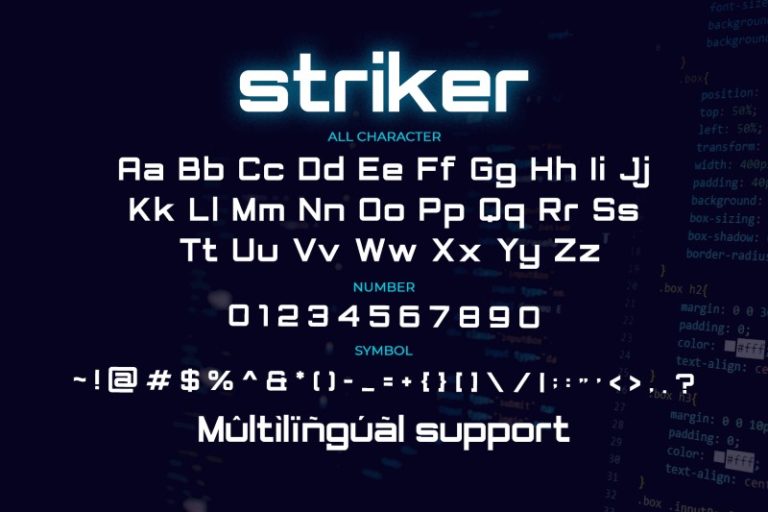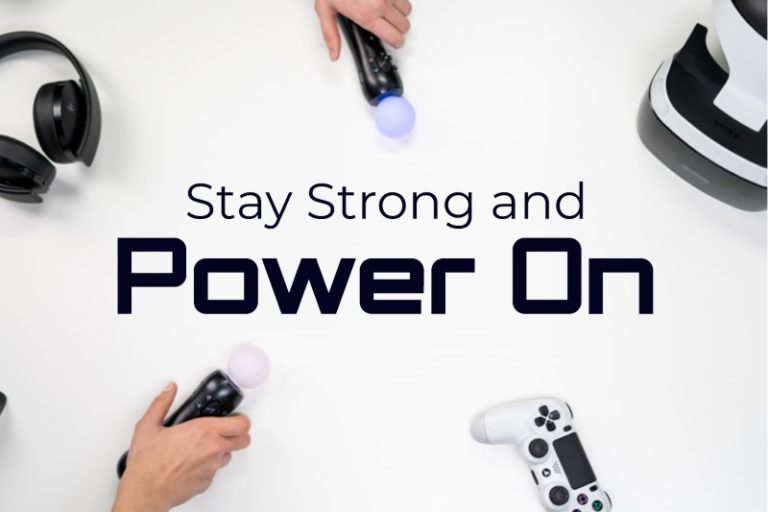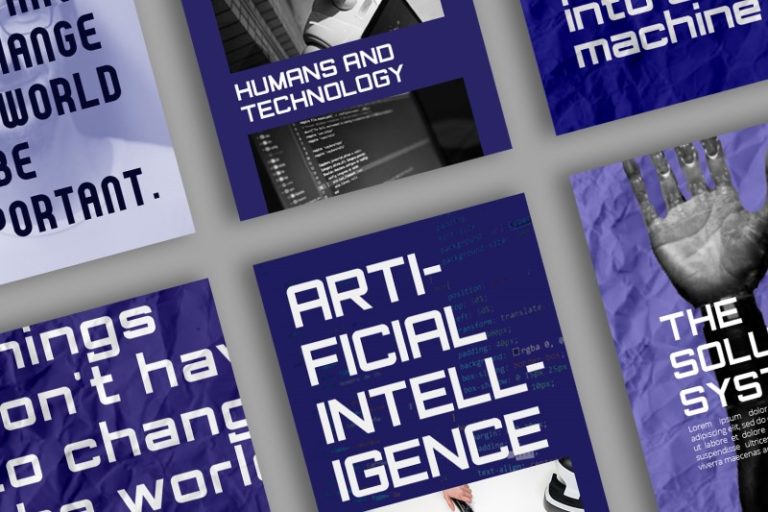
Striker – Modern Display Font
Striker
Hello, Everyone! Say hello to Striker!
Striker is a modern display font. Made for any professional project branding. It is the best for logos, branding and quotes. Every letter has a unique and beautiful touch. See the previews above to get some inspiration on how you can use them.
– Multilingual Support
– Numerals and Punctuation